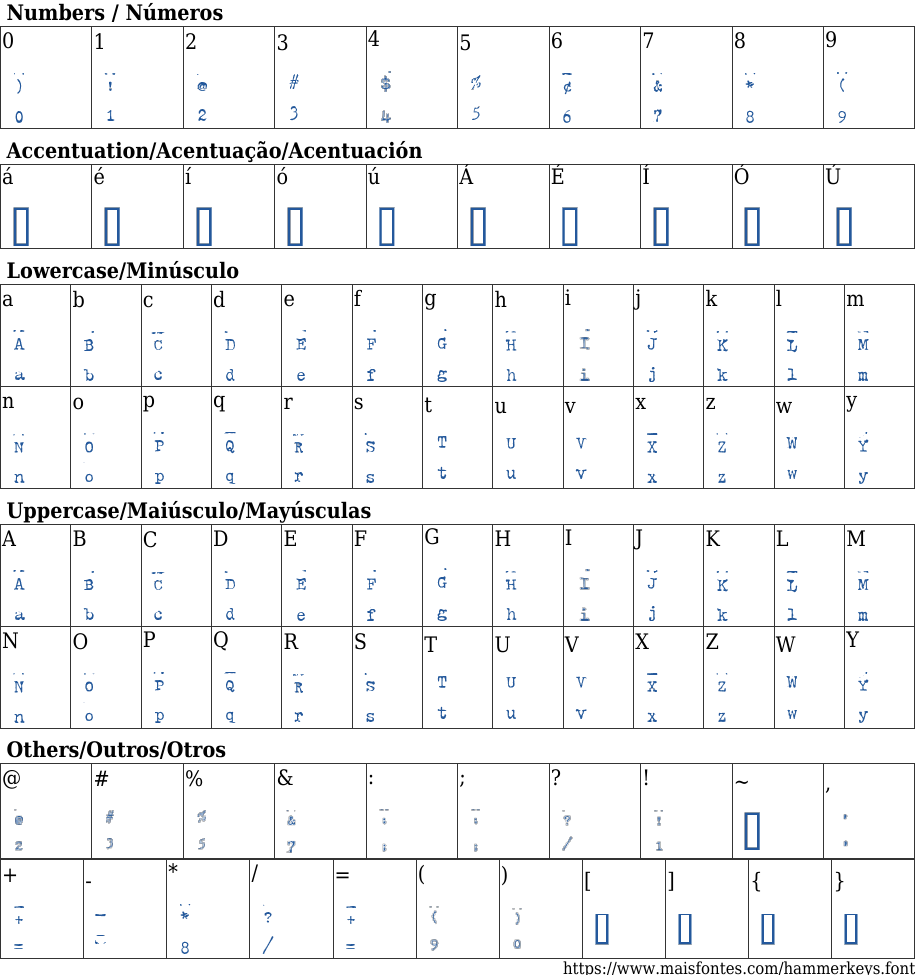
Hammer Keys Font Download . Hammer keys by matt lyon. 1,256,128 downloads (23 yesterday) 14 comments 100% free. Download hammerkeys for free, view sample text, rating and more on fontsgeek.com Hammer keys is a fancy, typewriter font designed by matt lyon. The font is free for both personel and commercial. The font is licensed as free. Get your very own free download of the hammer keys font, designed and created by matt lyon. Available in both ttf and otf typeface formats.
Hammer keys by matt lyon. Hammer keys is a fancy, typewriter font designed by matt lyon. Get your very own free download of the hammer keys font, designed and created by matt lyon. The font is licensed as free. 1,256,128 downloads (23 yesterday) 14 comments 100% free. The font is free for both personel and commercial. Available in both ttf and otf typeface formats. Download hammerkeys for free, view sample text, rating and more on fontsgeek.com